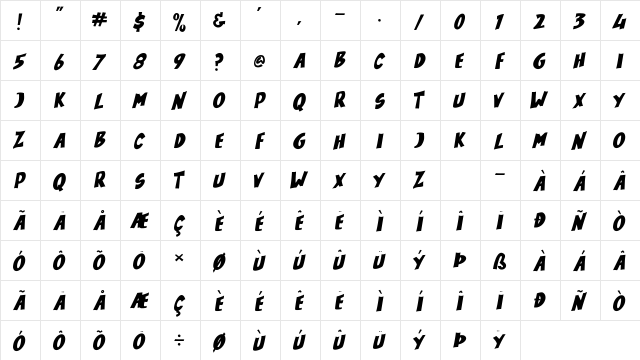
Houston Comics Personal Use Regular
| Designer | Kurnia Setyadi (deedeetype) |
Design Context for Houston Comics Personal Use Typeface
Houston Comics Personal Use has an approachable, lighthearted character — its loose, expressive forms are well-suited to children's content, casual branding, and fun-first design.
Well-suited to food and beverage brands with personality, educational materials, and fun-forward identities.
Font Pairing: Pairs well with a rounded or humanist sans for body copy, maintaining the friendly tone without relying on Houston Comics Personal Use to carry extended reading.
Pro Tip: Use Houston Comics Personal Use at larger display sizes where its expressive character can land. Pair with a clean, simple sans for body copy to maintain readability.